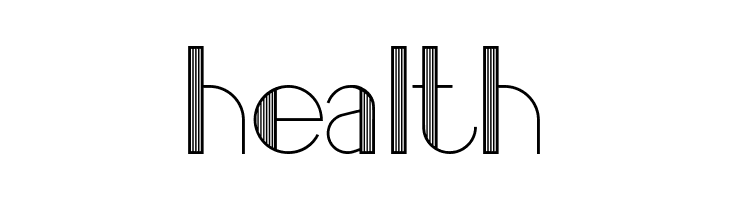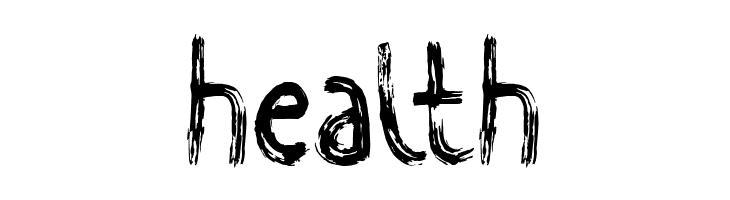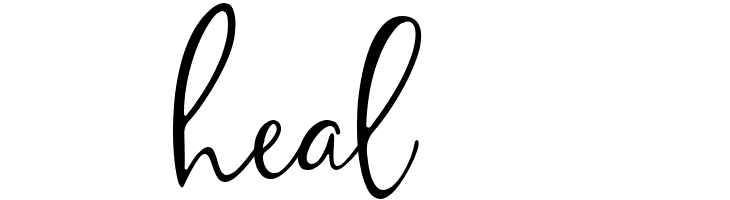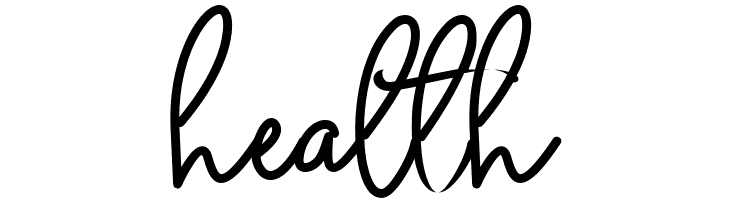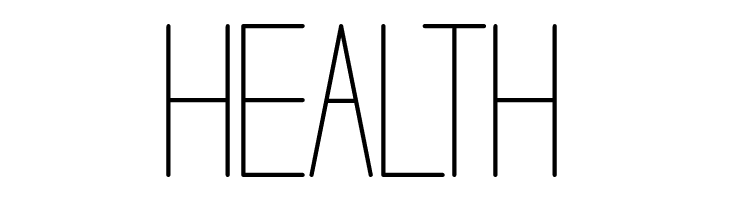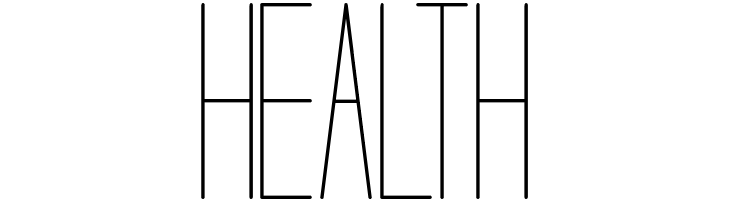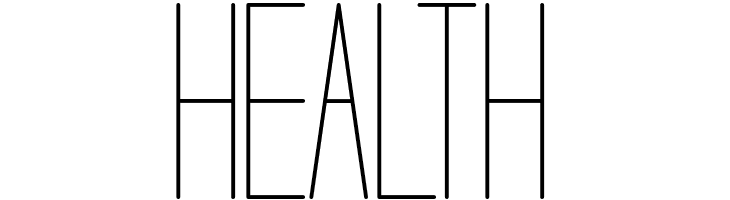
A modern, striped font with geometric influences and artistic flair.
A bold, brush-stroke style font with dynamic and textured characters.
An elegant, flowing script font with smooth, connected strokes.
A smooth, monoline script font with elegant, connected characters.
A playful, casual handwritten font with rounded, uneven strokes.
A sleek, modern font with geometric lines and consistent stroke width.
A modern, sleek font with thin, elongated letterforms and a geometric style.
A modern, sleek font with tall, narrow characters and a minimalist design.
A modern, ultra-thin font with elongated, narrow characters.
A modern, minimalist font with tall, narrow letterforms and thin strokes.